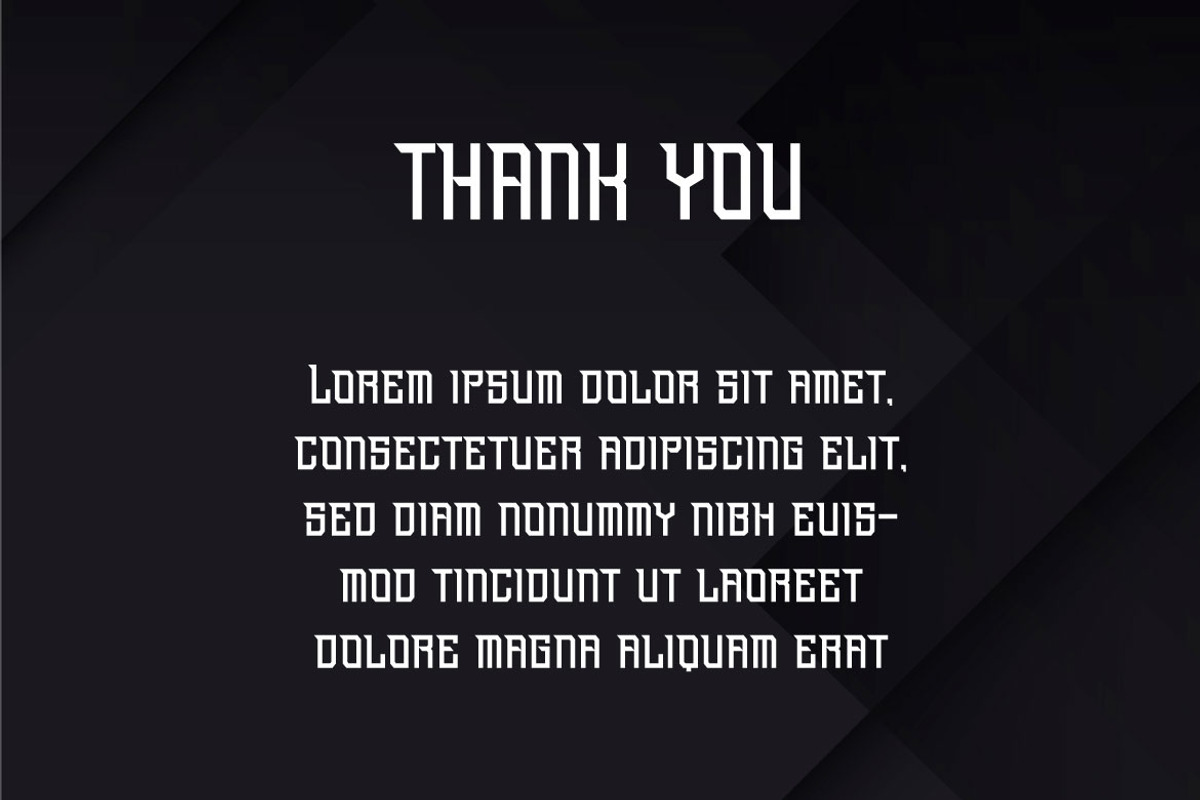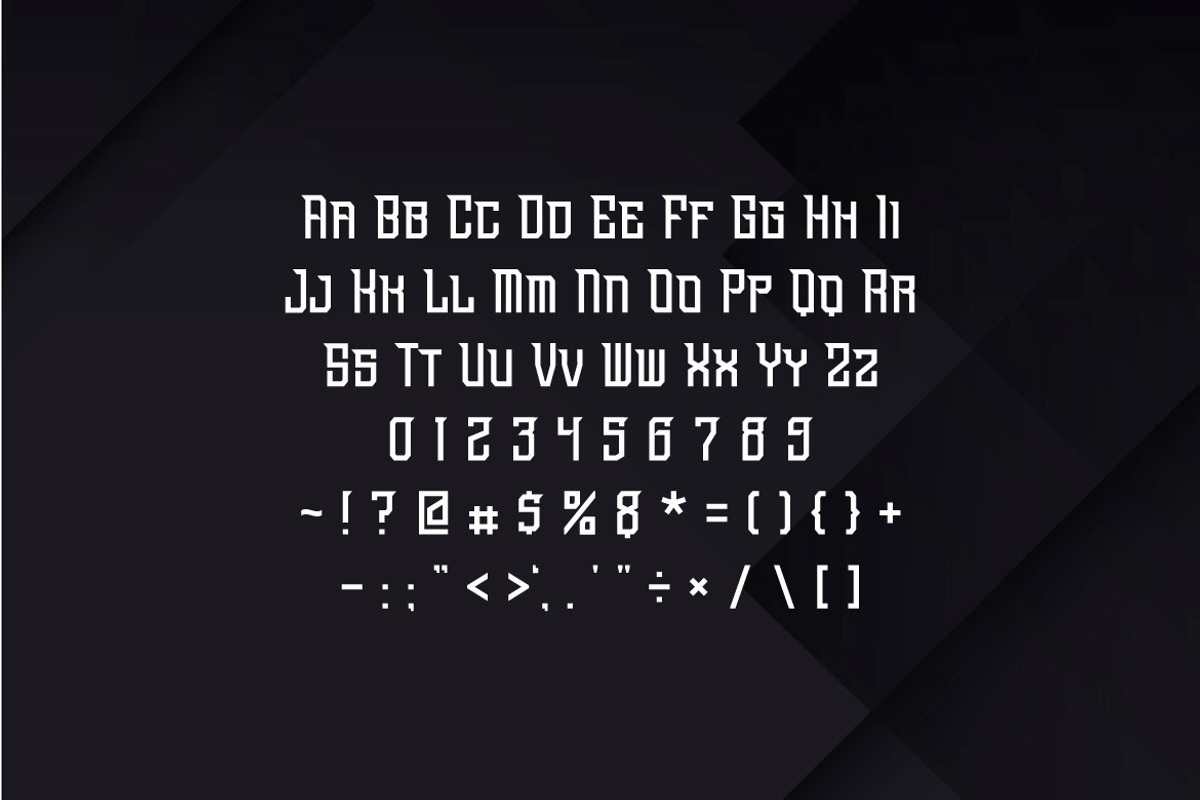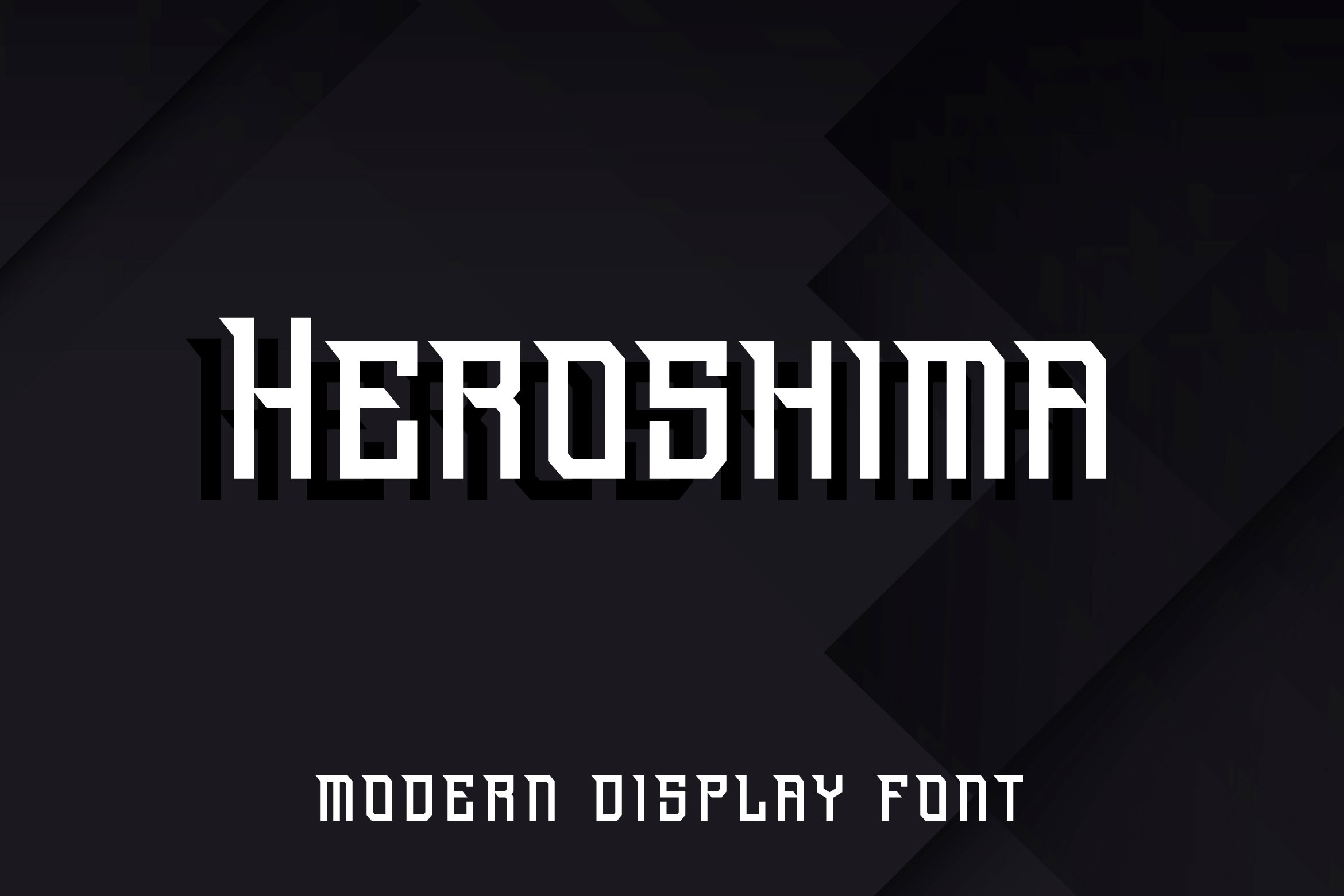
Heroshima - Modern Display Font
If you are looking for a modern and futuristic display font, meet Heroshima
Heroshima is perfect for any works, such as sport and esport logo and content card, book title, headline of news, banner, flyer, stationery and many more. It also can be used in any size work.